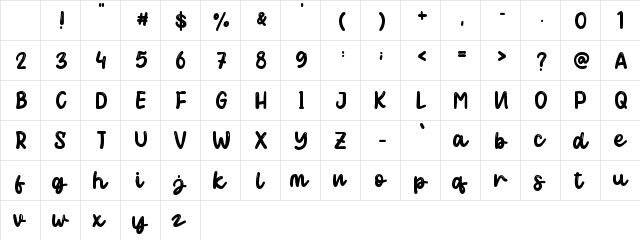
Complete Baby Bonita - Personal Use Regular glyph index. Displaying only characters natively supported by Baby Bonita - Personal Use Regular font.
Baby Bonita - Personal Use is a composed and adaptable typeface that performs quietly and consistently across a wide range of design contexts.